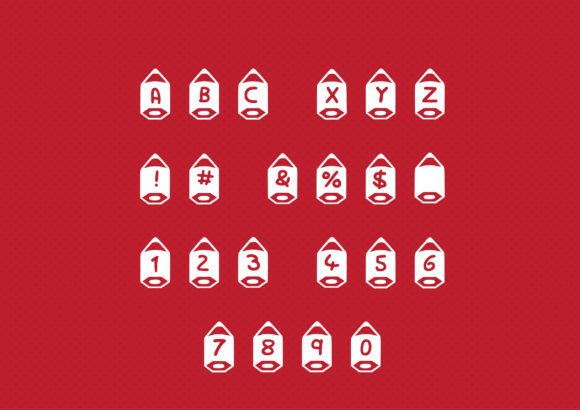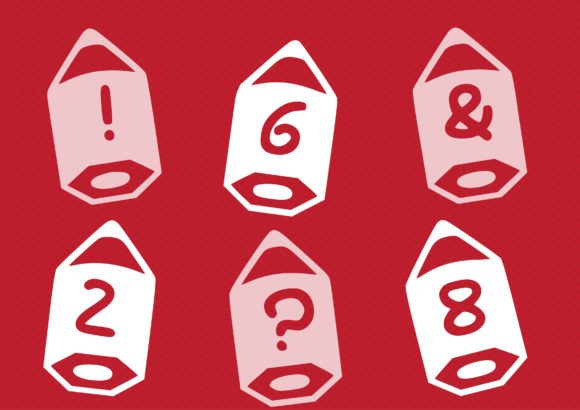
Introduction to Play Pencil Font
Play pencil is a fun decorative font suitable for school-related projects and not only.
Use it to create outstanding storybook titles, stationery packaging, backpack designs, or more .
Key Features of Play Pencil Font